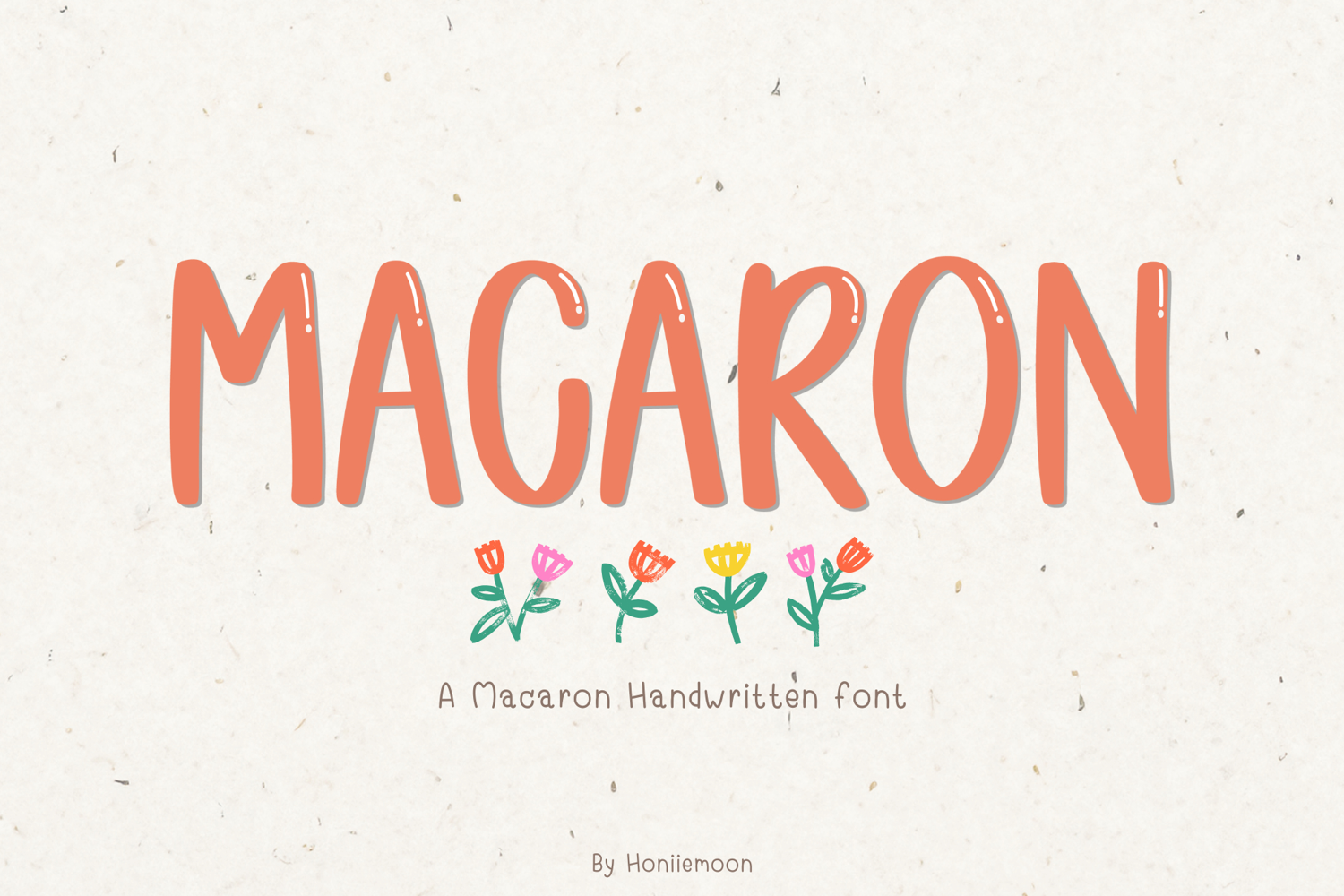
Macaron is a charming and playful handwritten font that brings a touch of whimsy to any project. With its delightful curves and natural flow, this display font is perfect for adding a friendly feel to your designs.